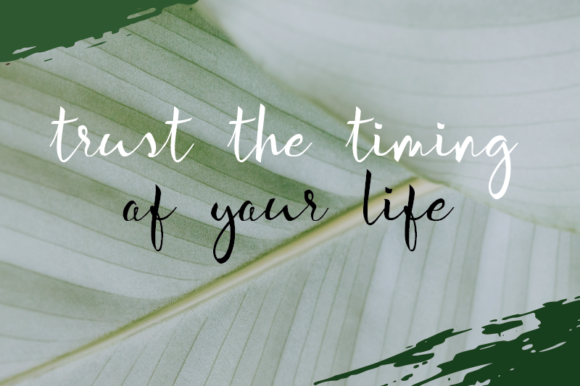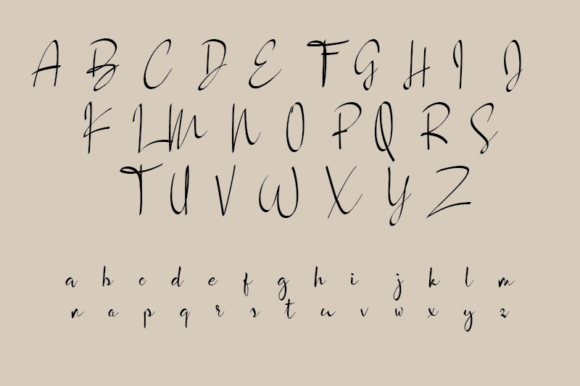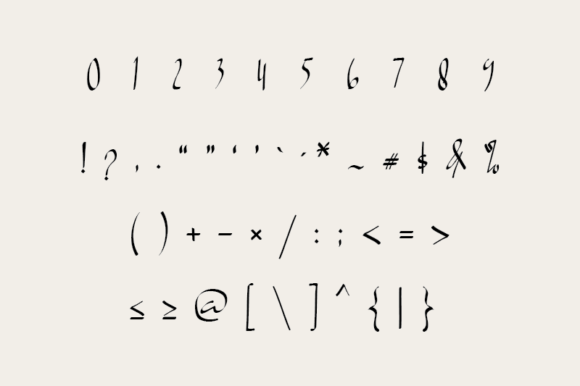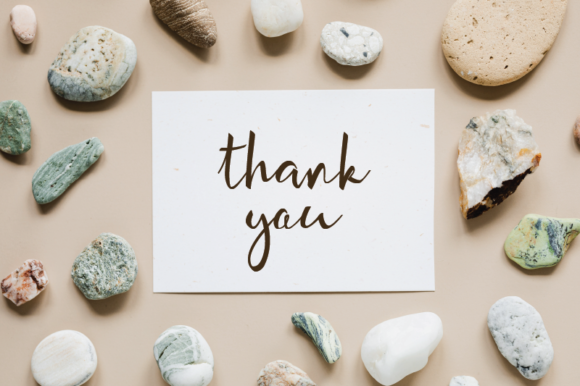
Handytype Font
About Handytype Font
Handytype is a beautiful and flowing handwritten font. It maintains its classy calligraphic influences while feeling contemporary and fresh. Fall in love with it and bring your projects to the highest levels!